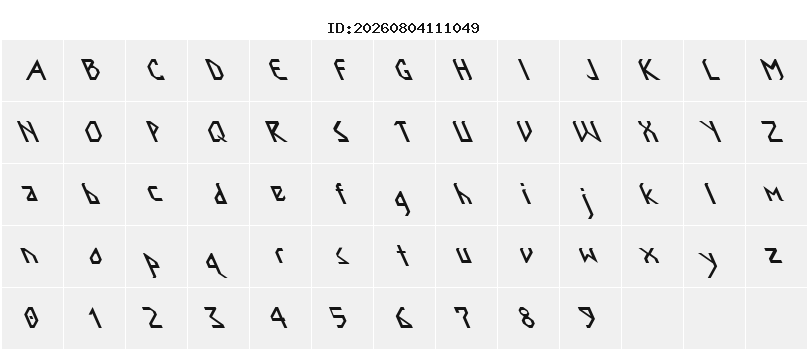
Nordic Leftsided Preview
• Font Name: Nordic Leftsided
• Full Font Name: Nordic Leftsided
• PostScript Name: NordicLeftsided
About Nordic Leftsided.ttf
Nordic Leftsided.ttf is a modern, elegant sans-serif font designed for ultimate readability and visual harmony. Perfect for branding, headlines, web design, and print materials.